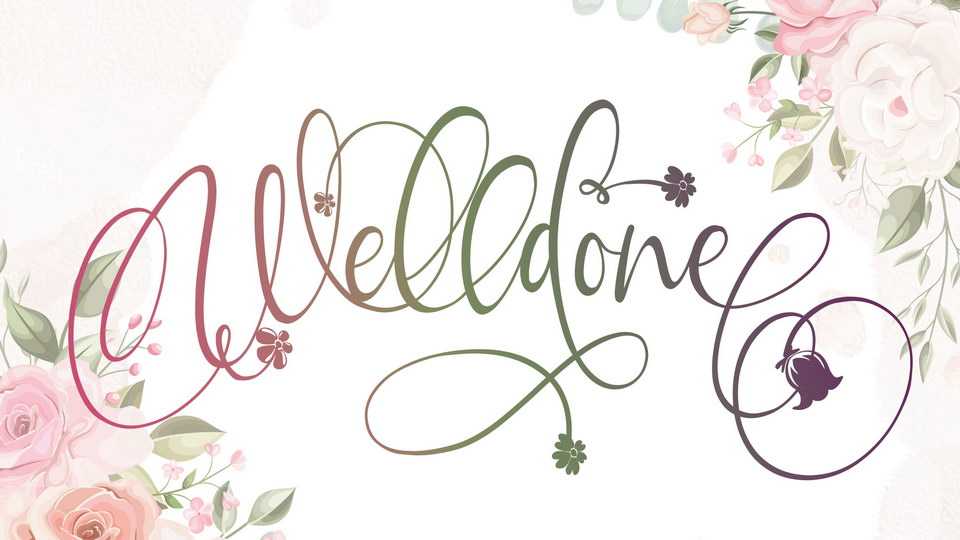
Download Welldone font, a flower calligraphy scriptwith an incredibly luxurious feel. Welldone font will add a romantic touch to any crafting project.